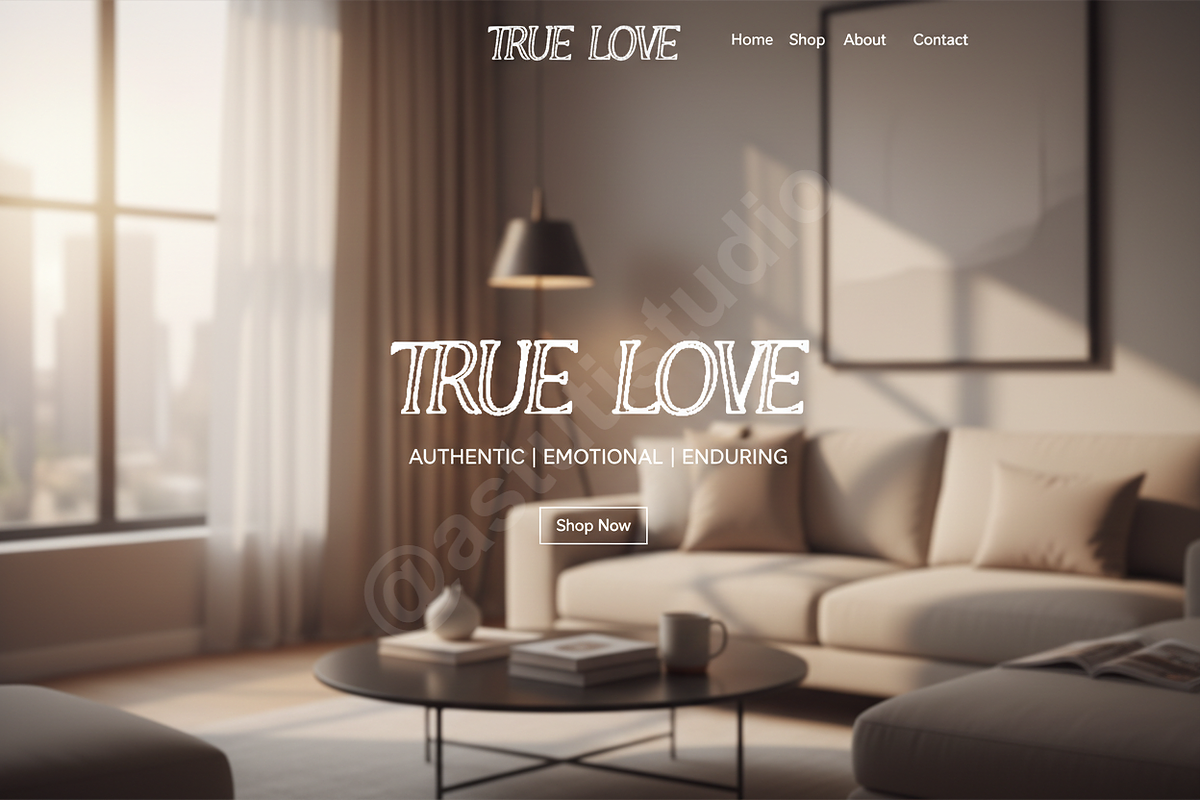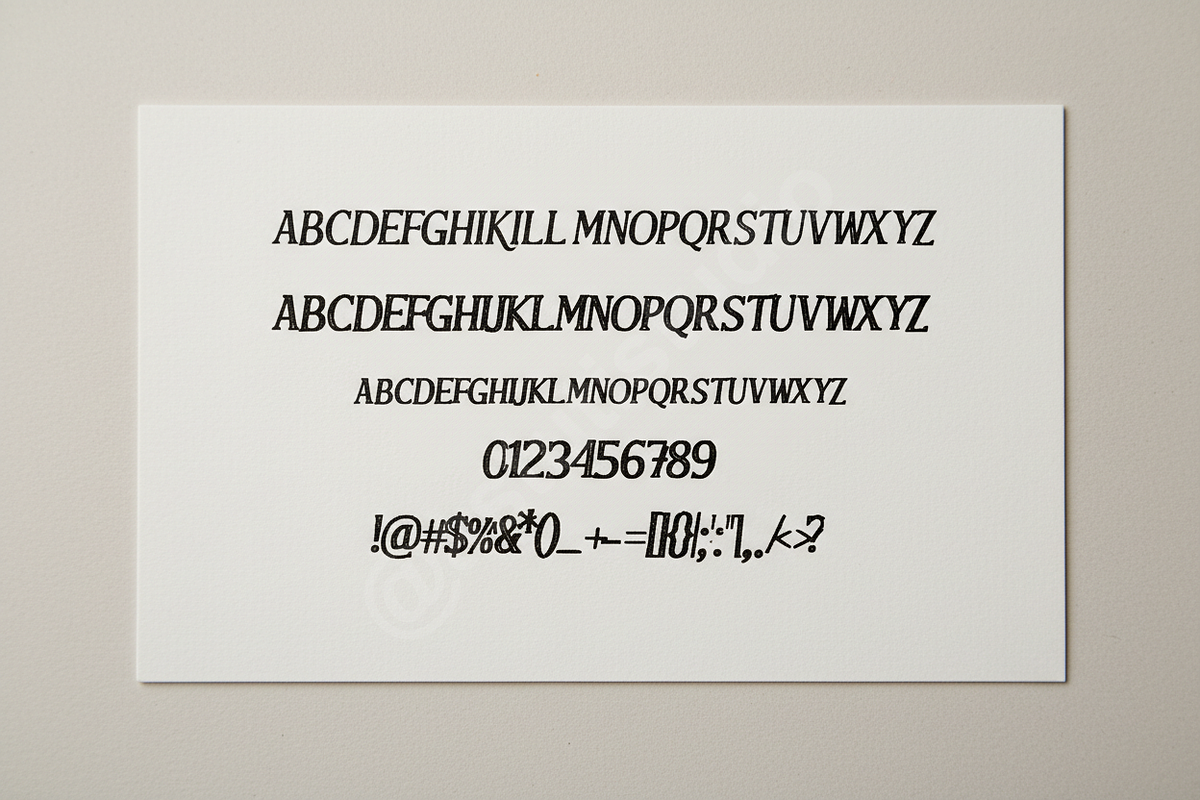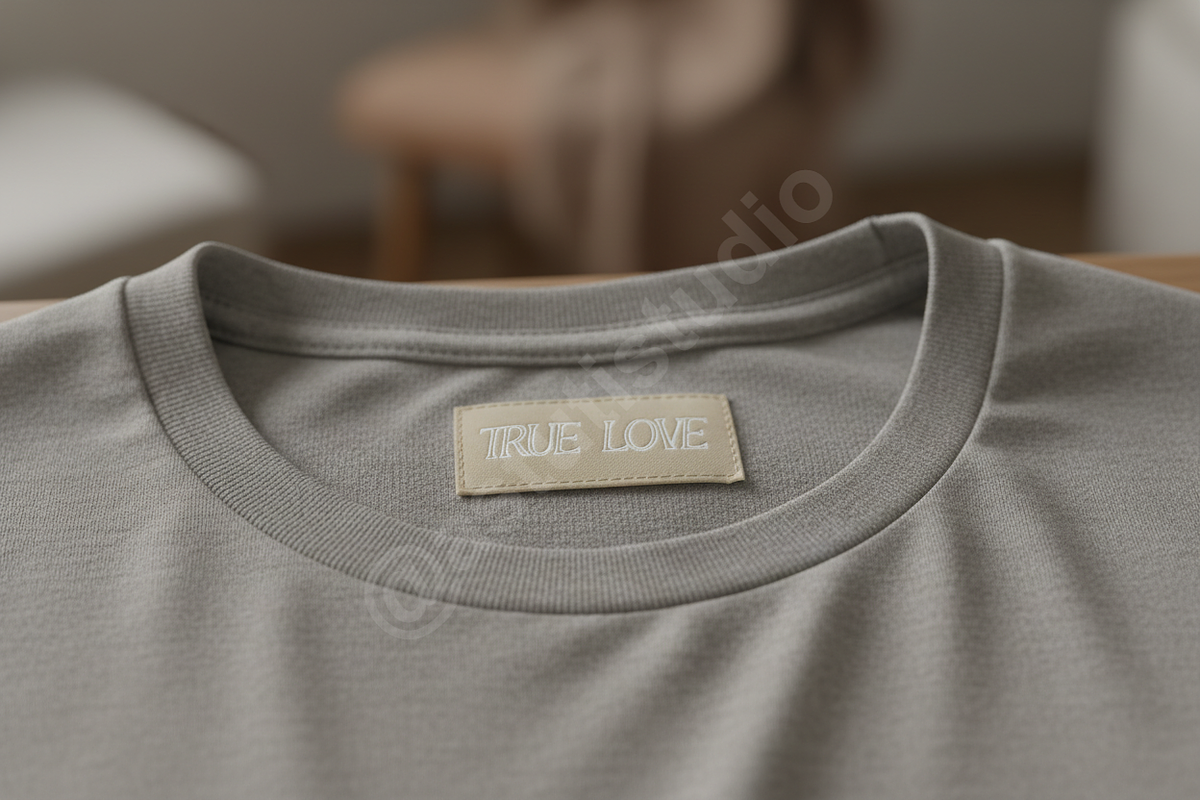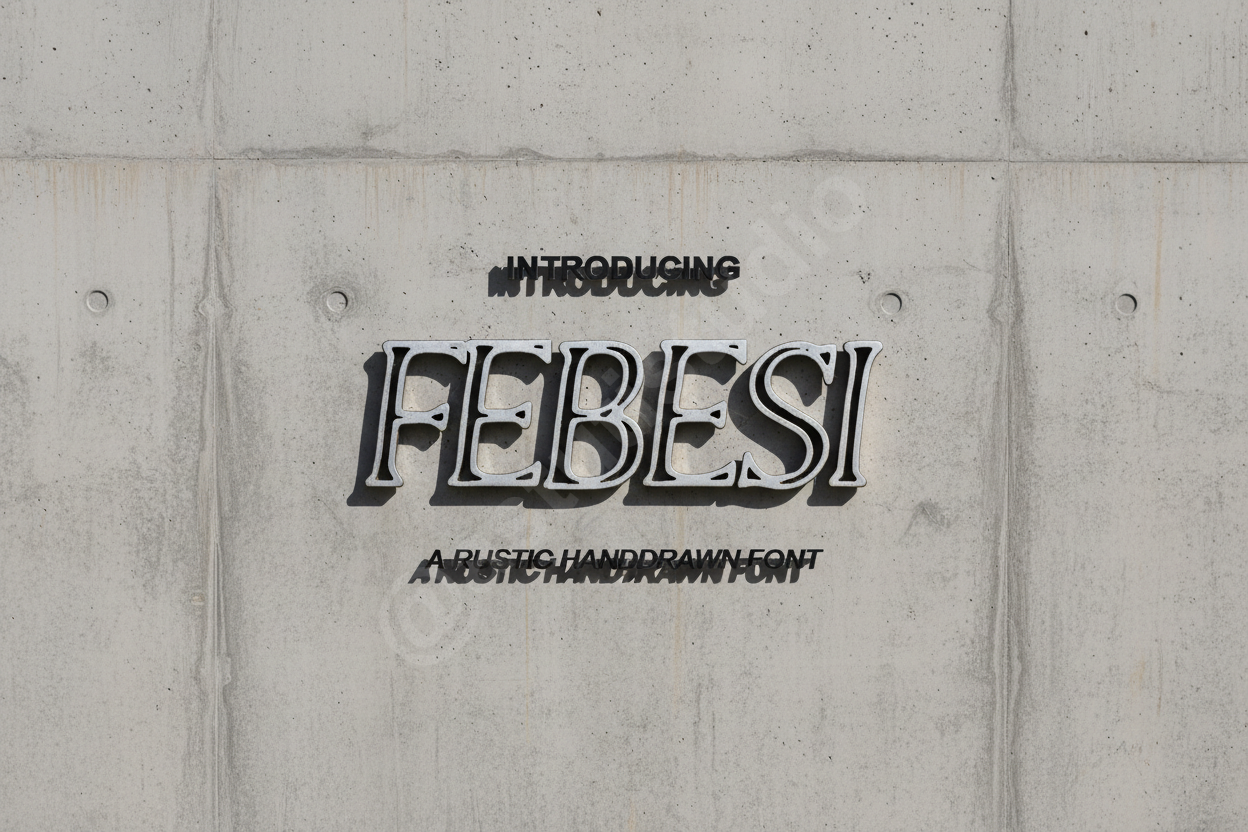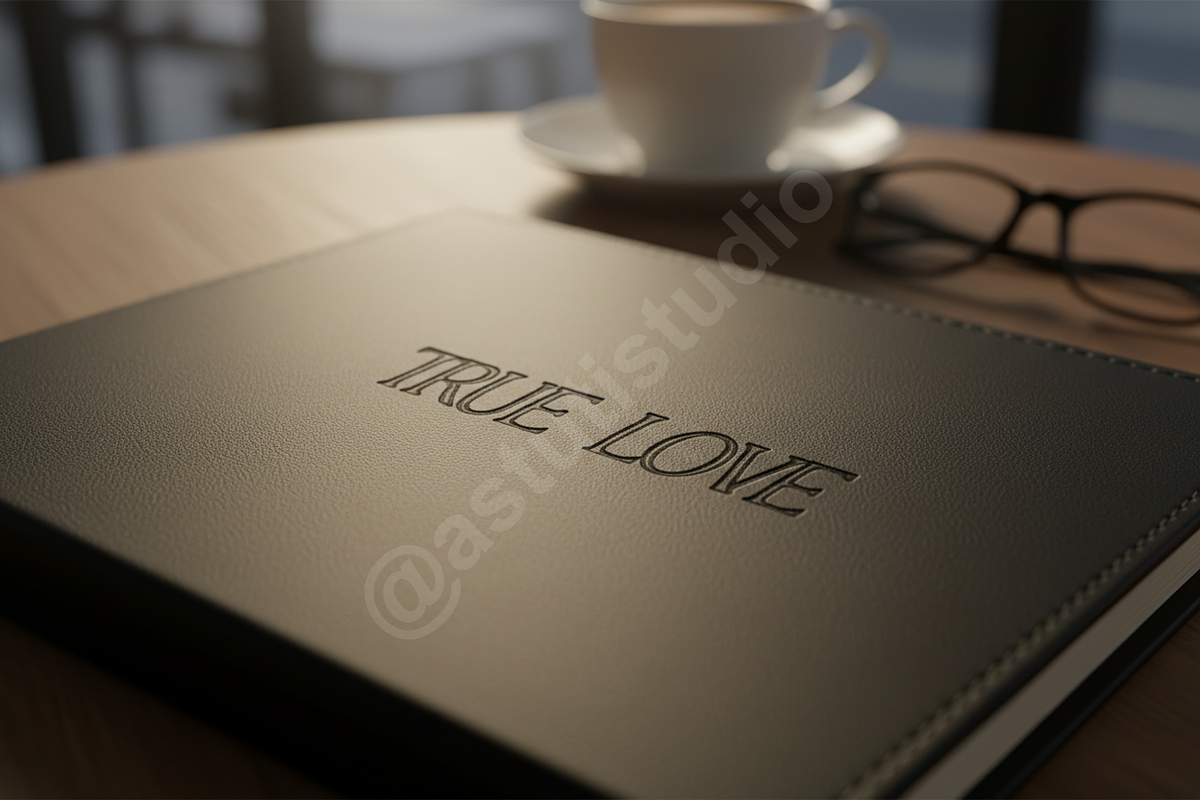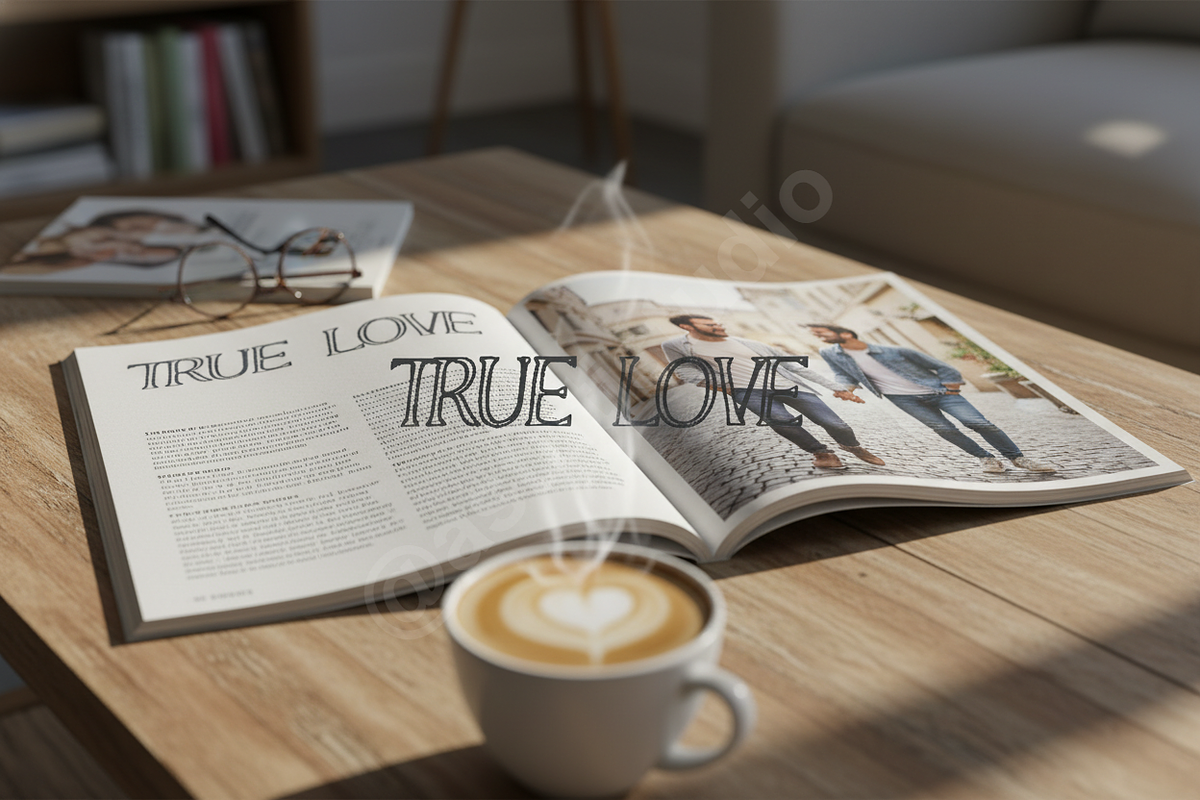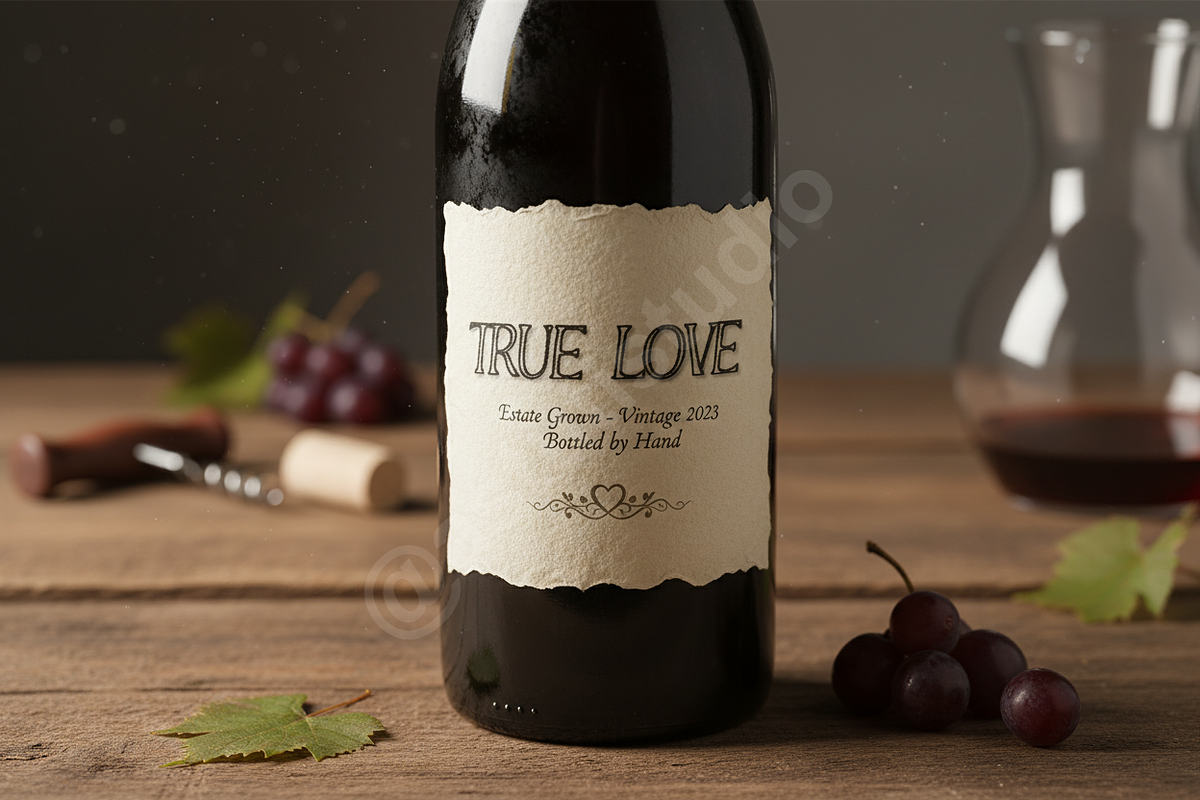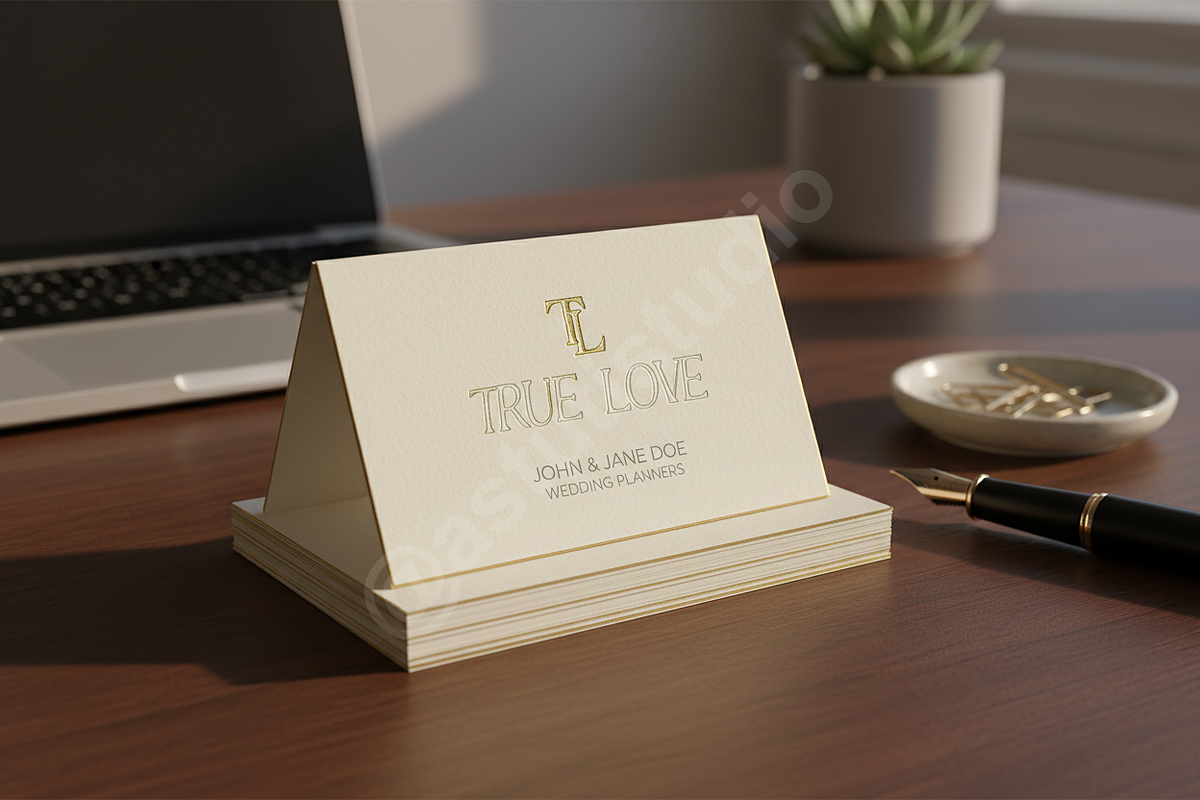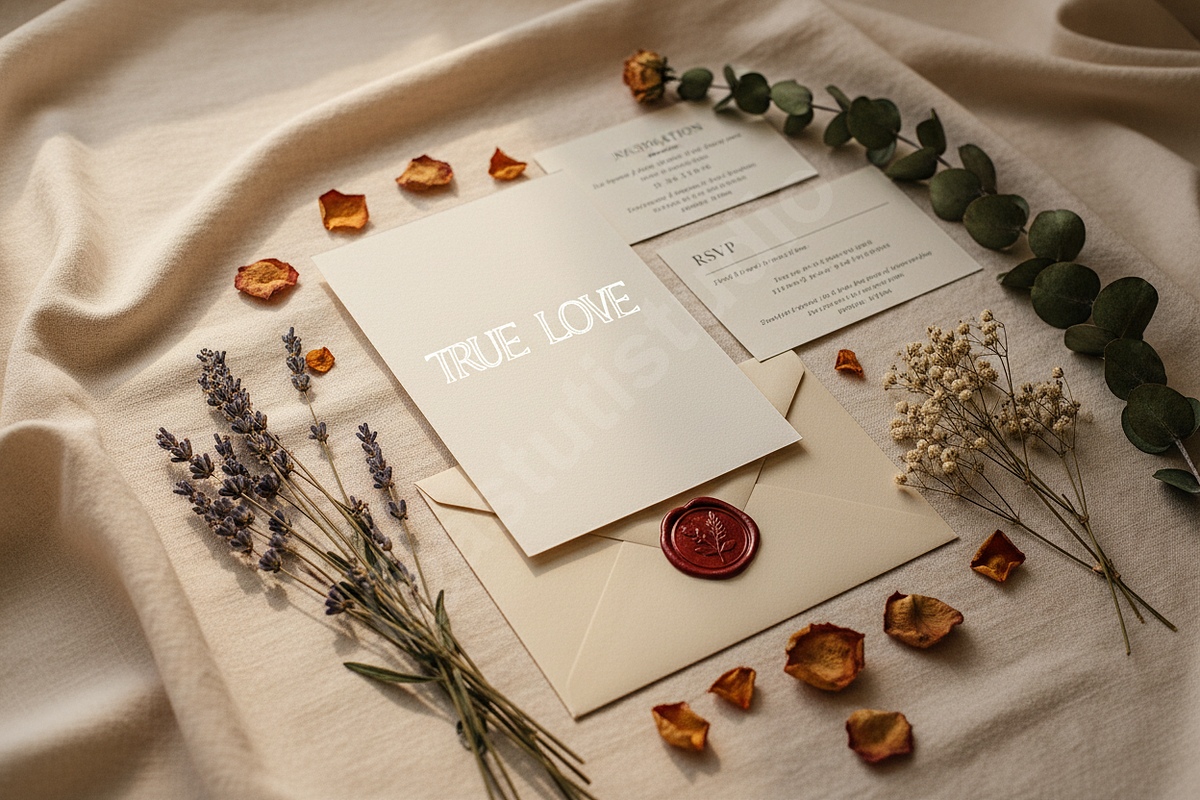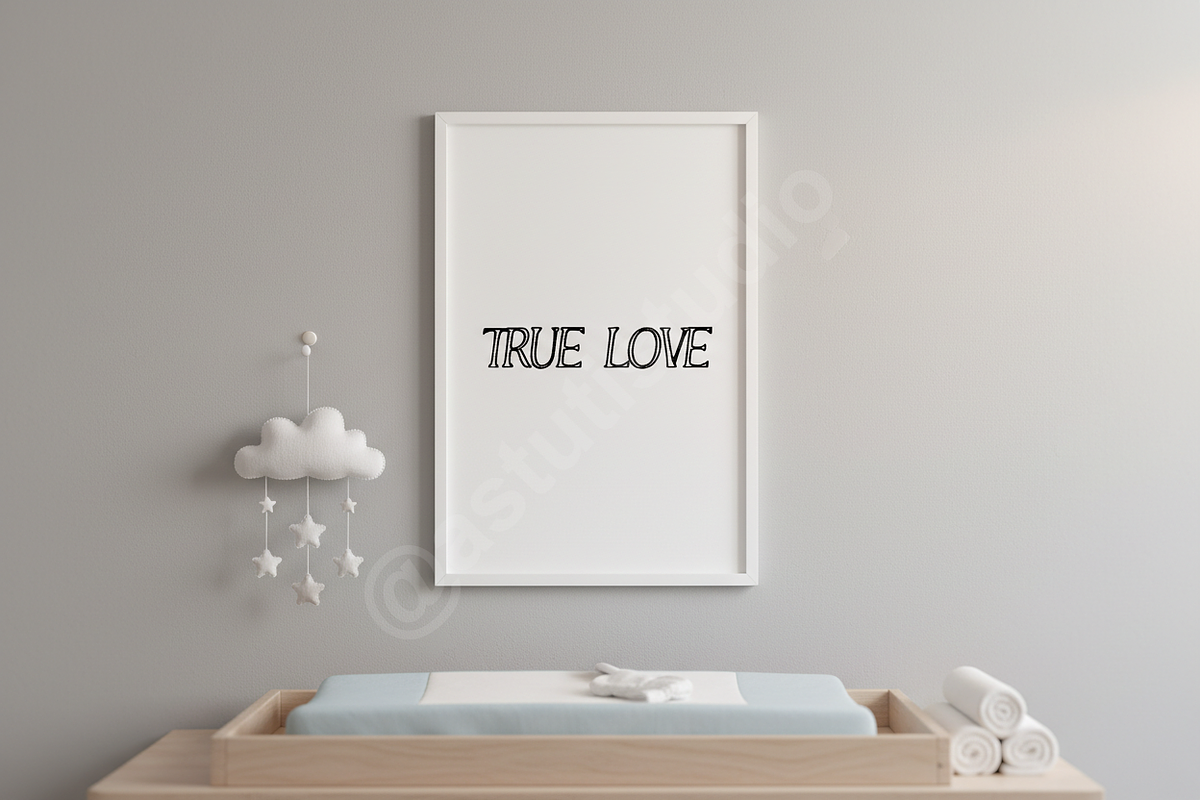
Febesi - Luxury Serif Typeface
Introducing Febesi, an exquisitely crafted serif typeface designed to elevate your projects with an air of refined sophistication. Perfect for luxury branding, high-end editorial layouts, and impactful social media campaigns, Febesi blends timeless elegance with modern clarity, making it the ideal choice for designers seeking a premium aesthetic.
Key Features: • Elegant Serif Design: Classic yet contemporary, ideal for prestigious applications. • Extensive Ligatures & Alternates: Enhance typographic aesthetics with sophisticated character variations for unique customizability. • Multilingual Support: Reach a global audience with comprehensive language coverage. • Versatile Application: Suited for compelling headlines, engaging body text, distinctive logos, and striking display purposes. • Optimal Readability: Meticulously designed for clarity and visual comfort across various sizes and mediums.